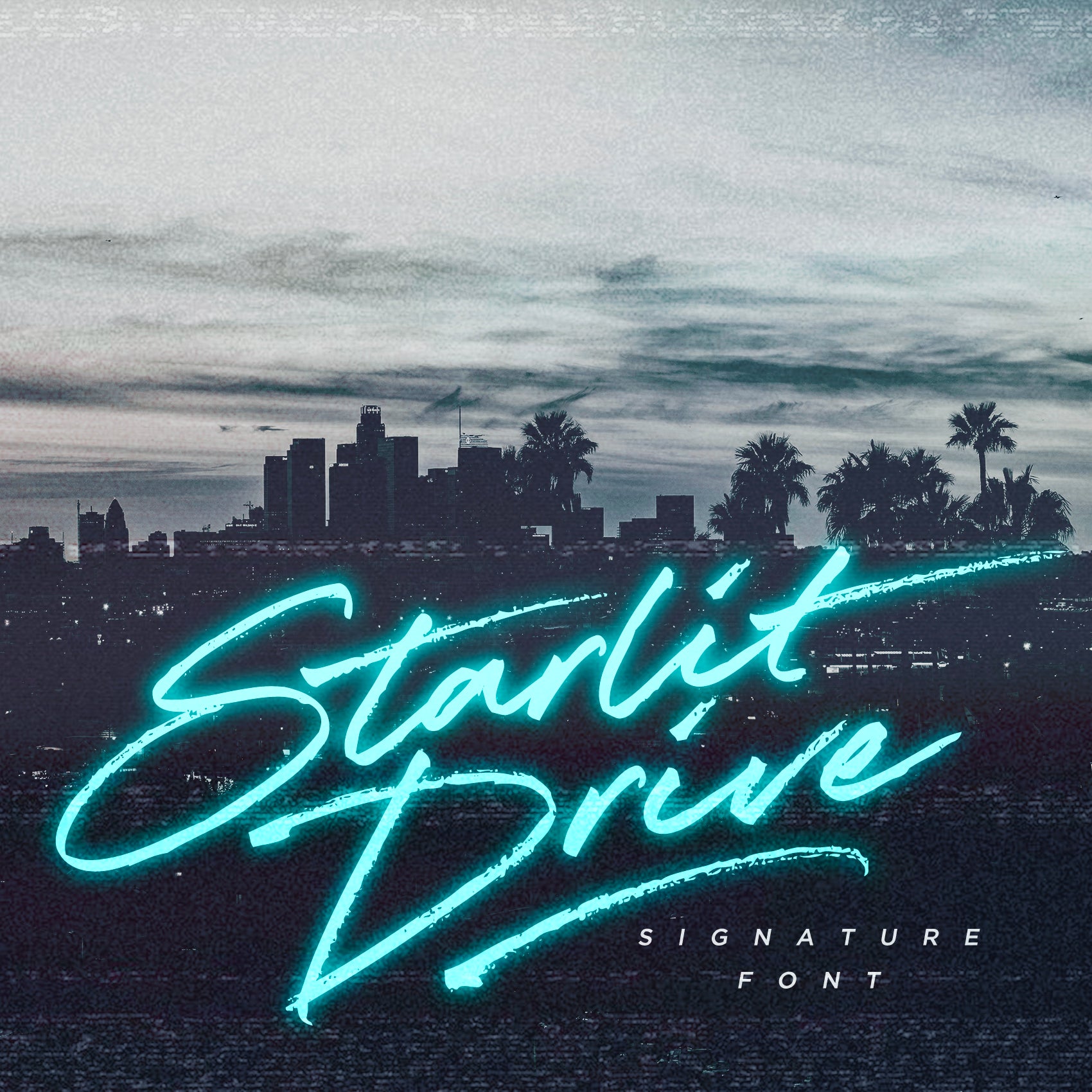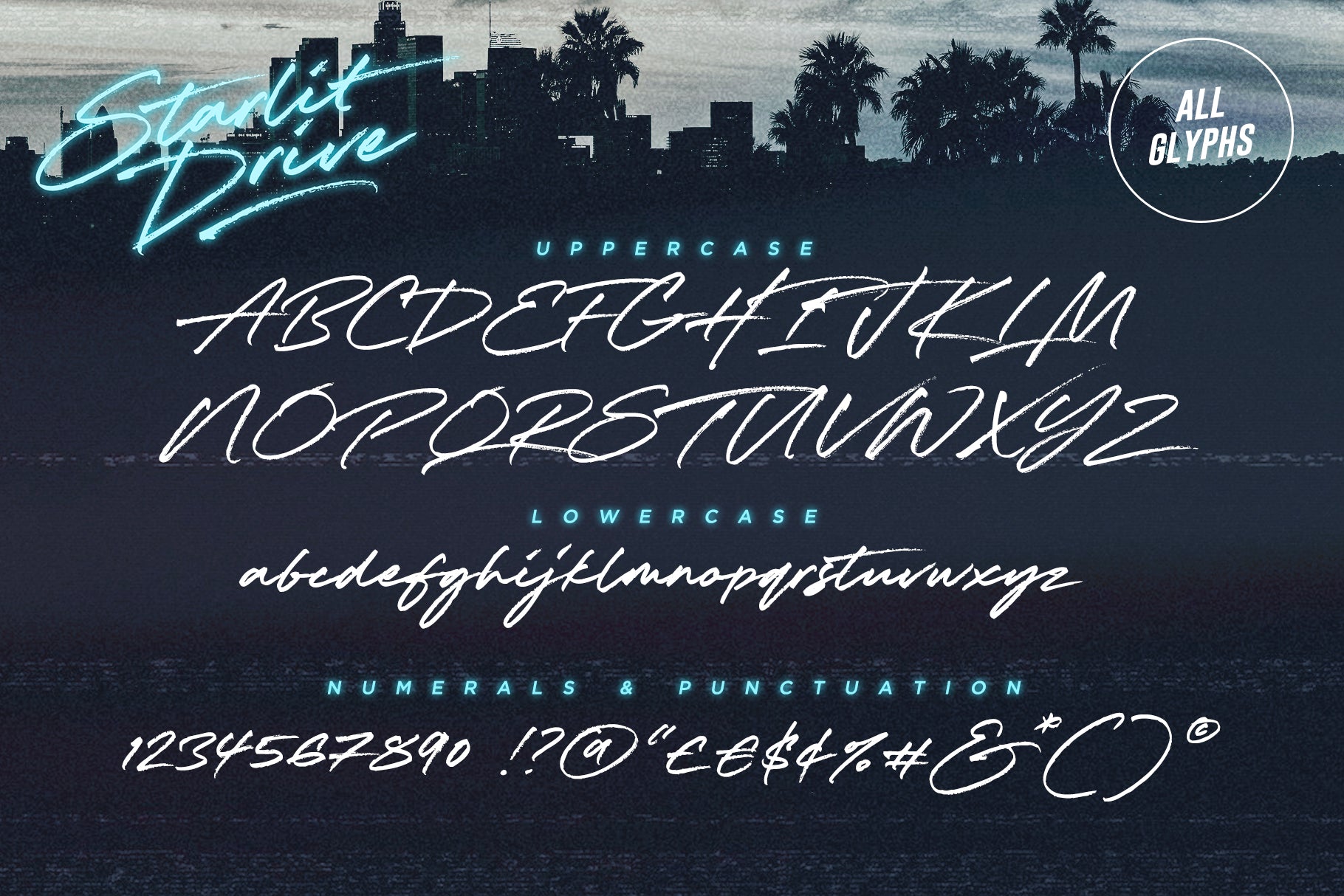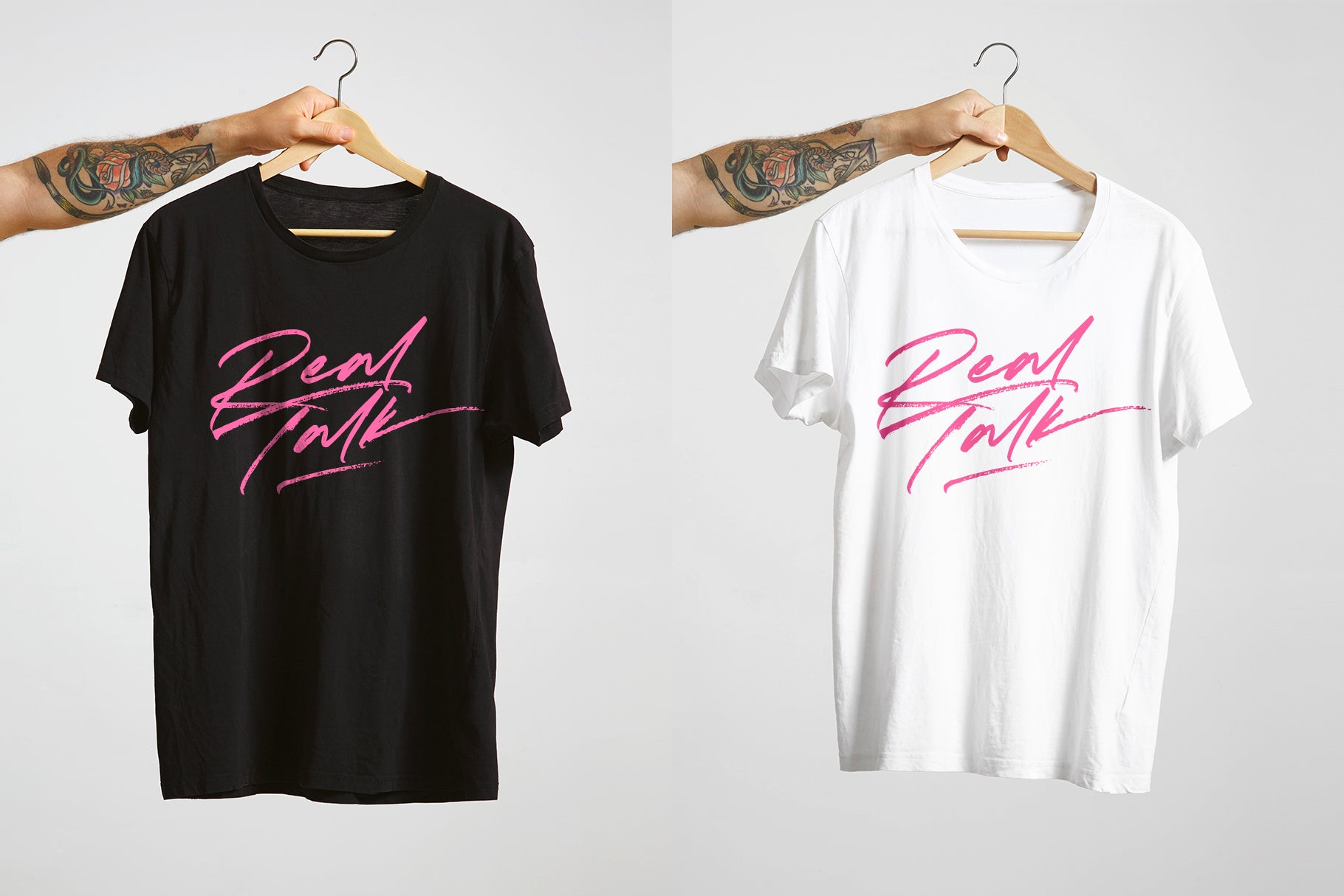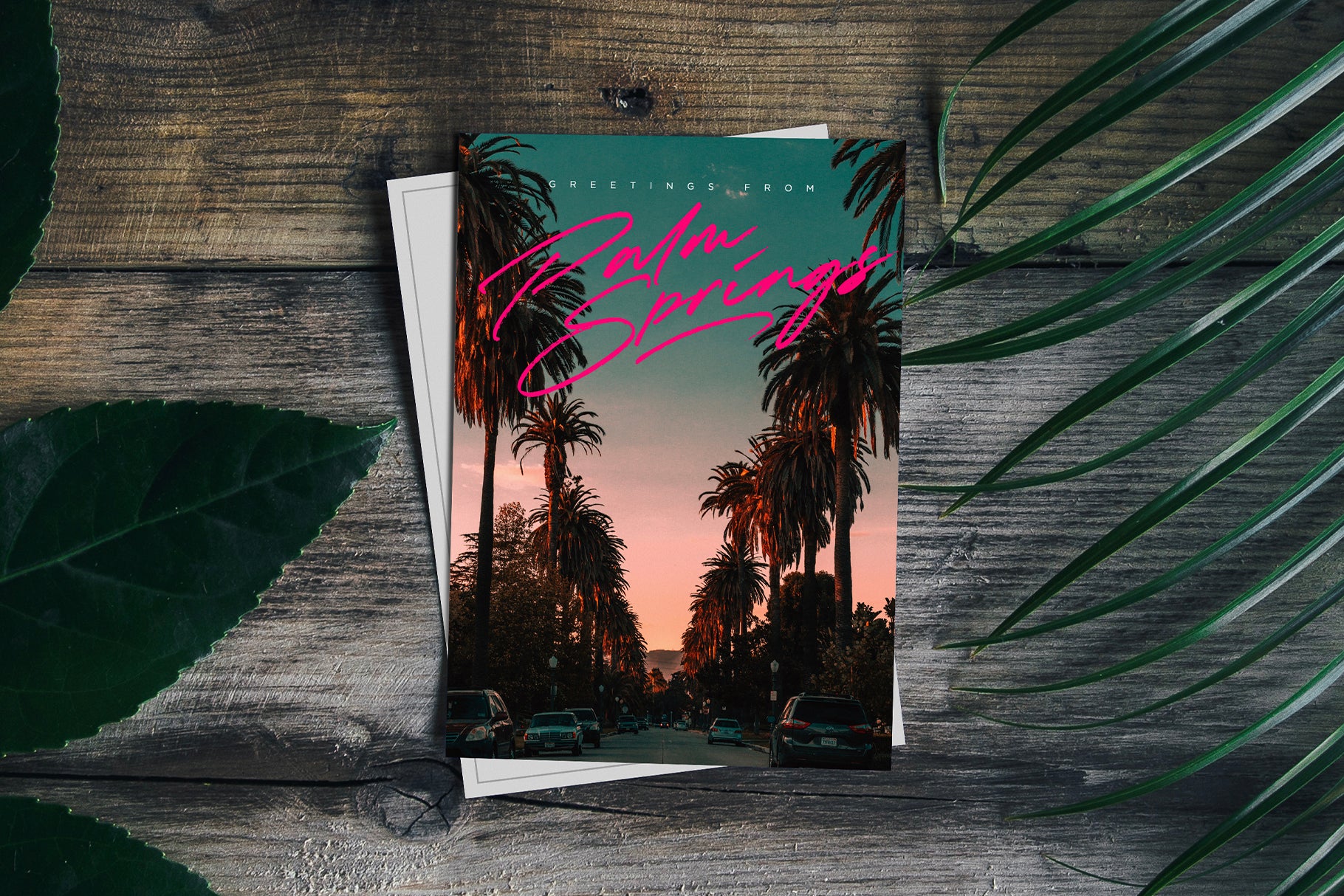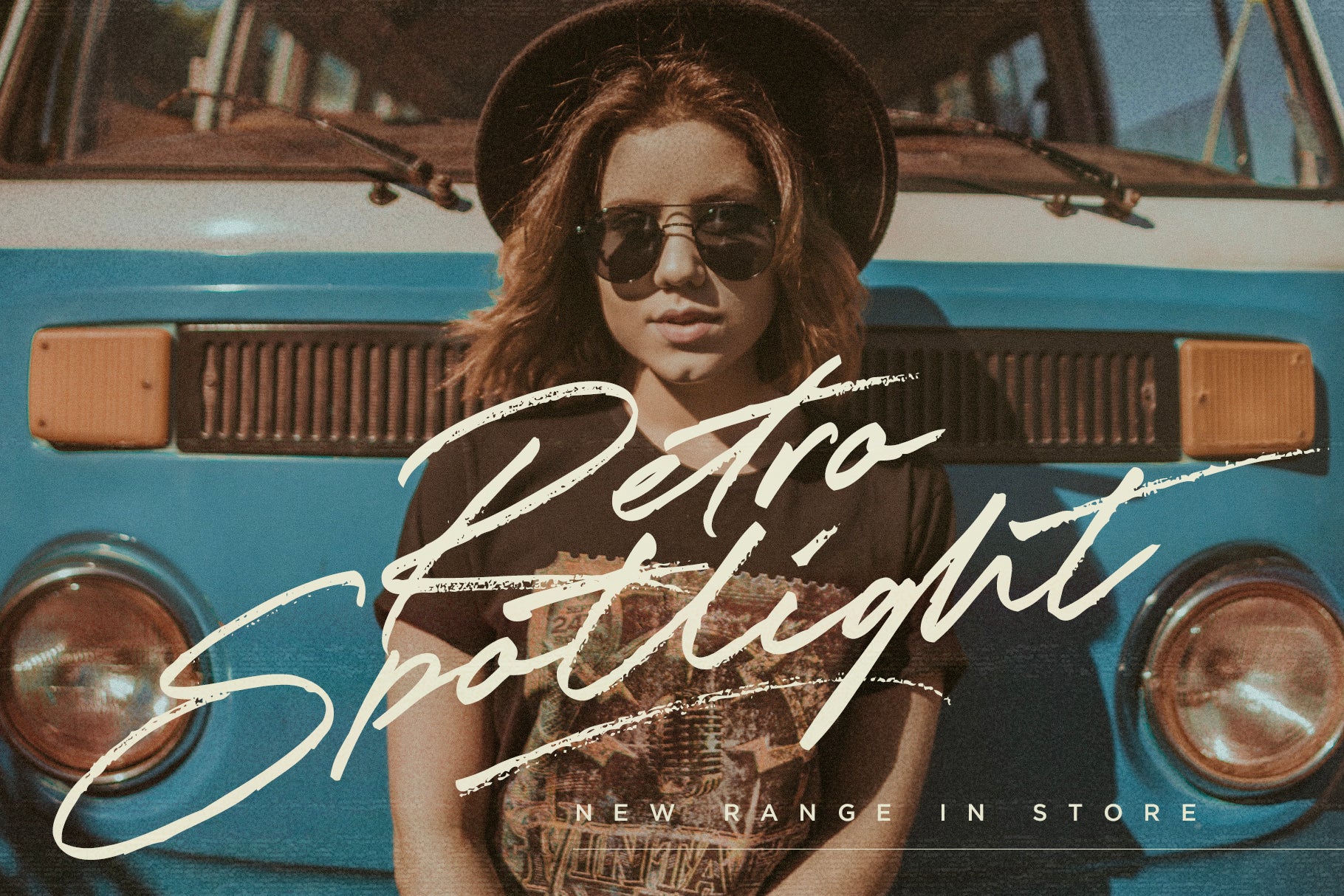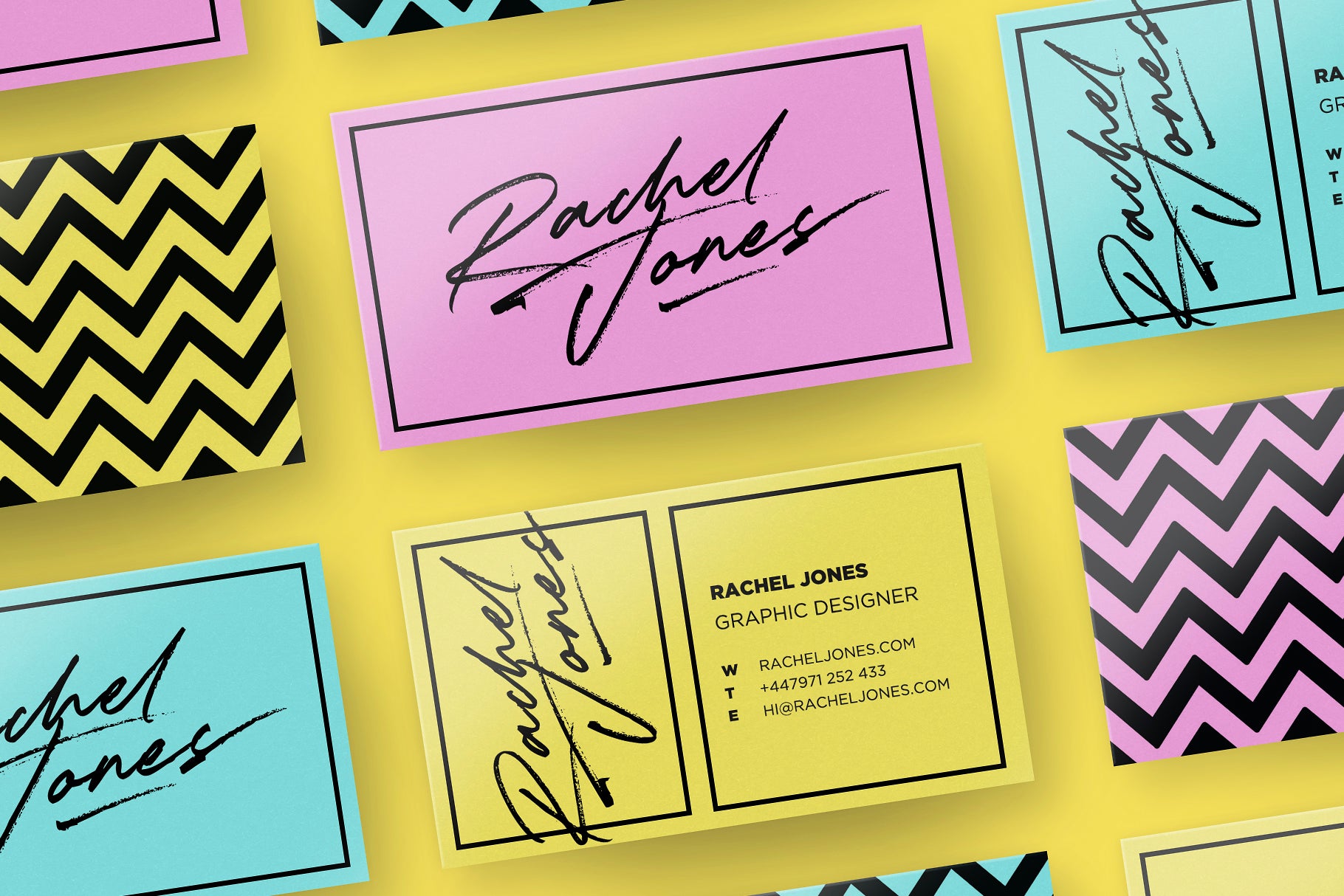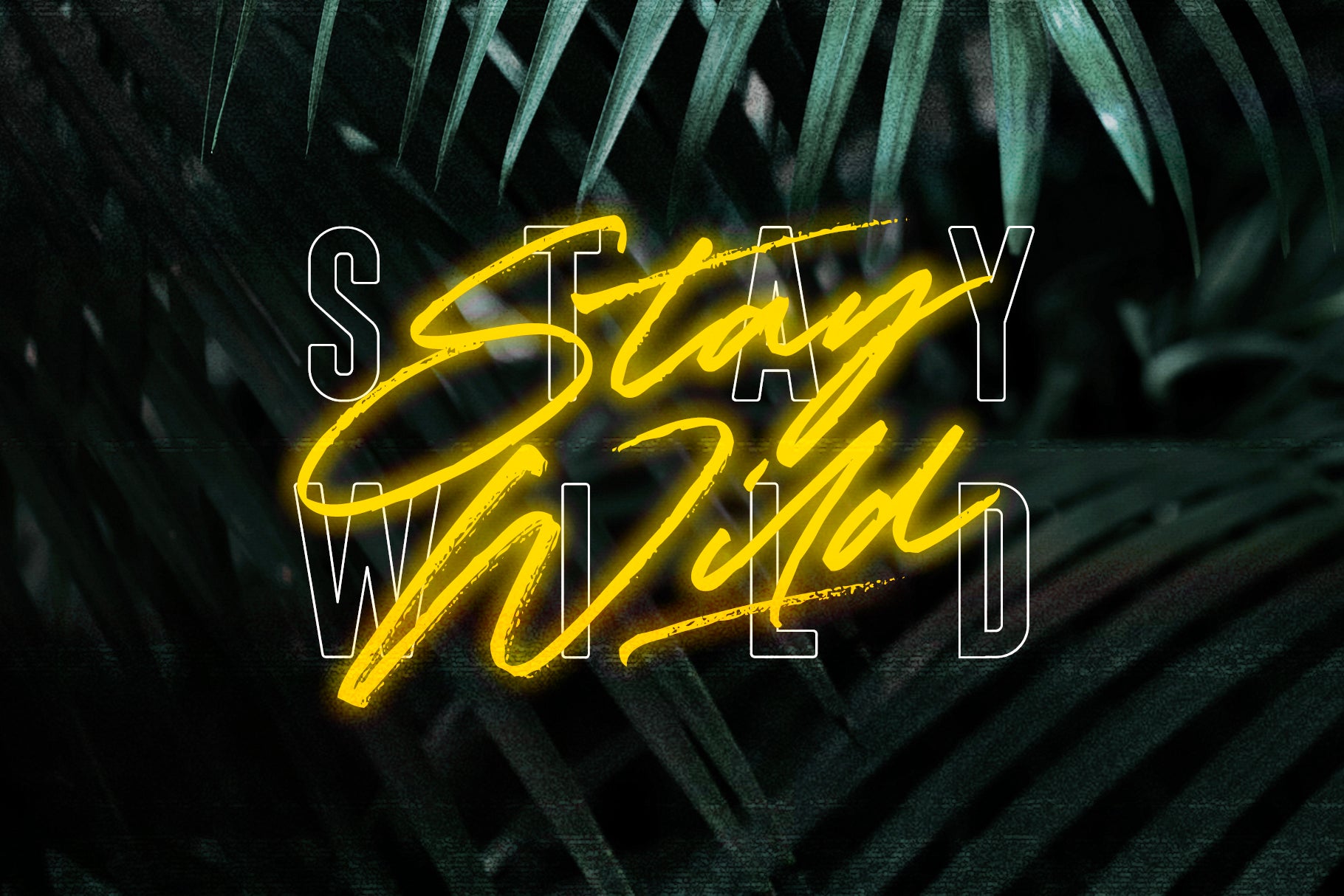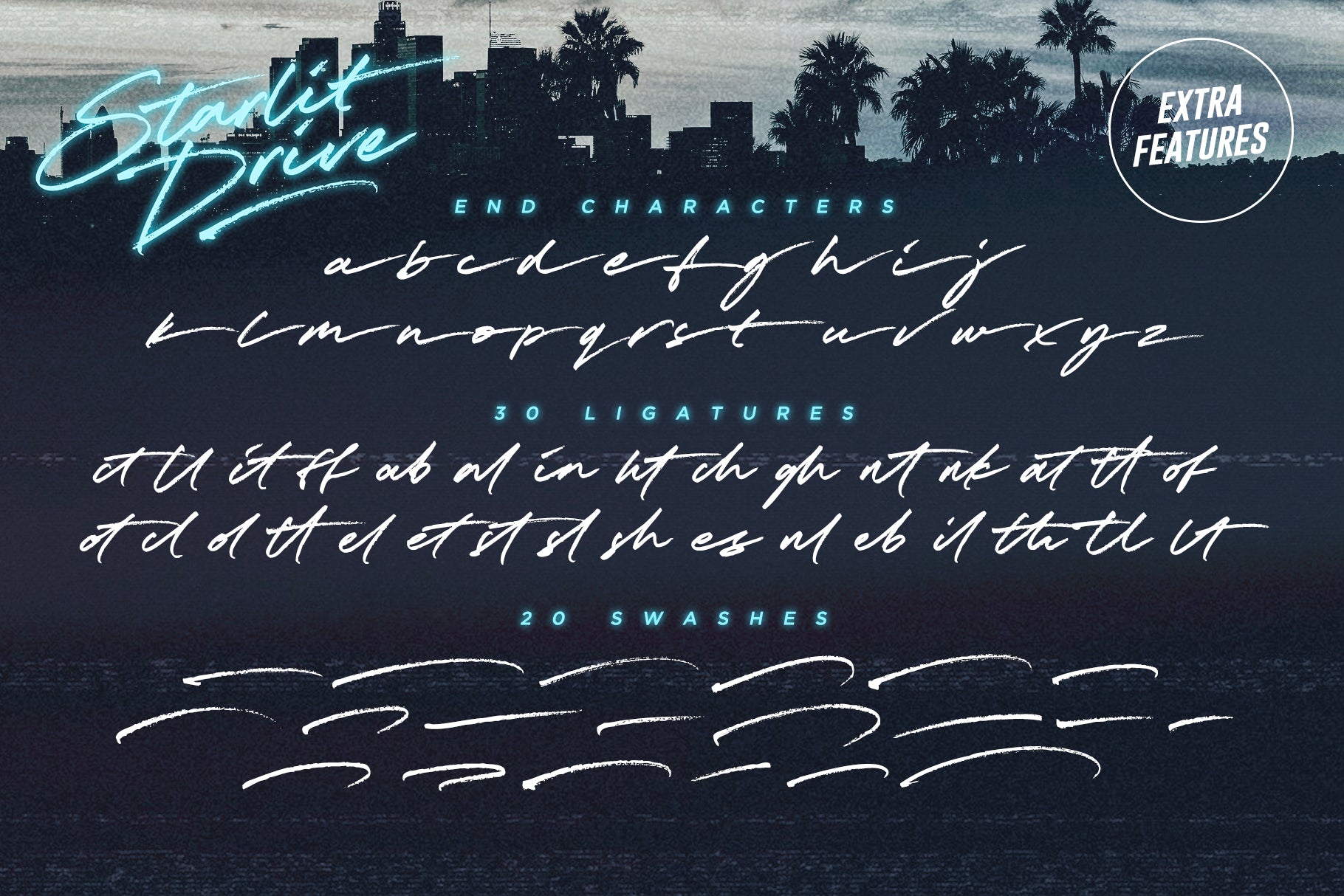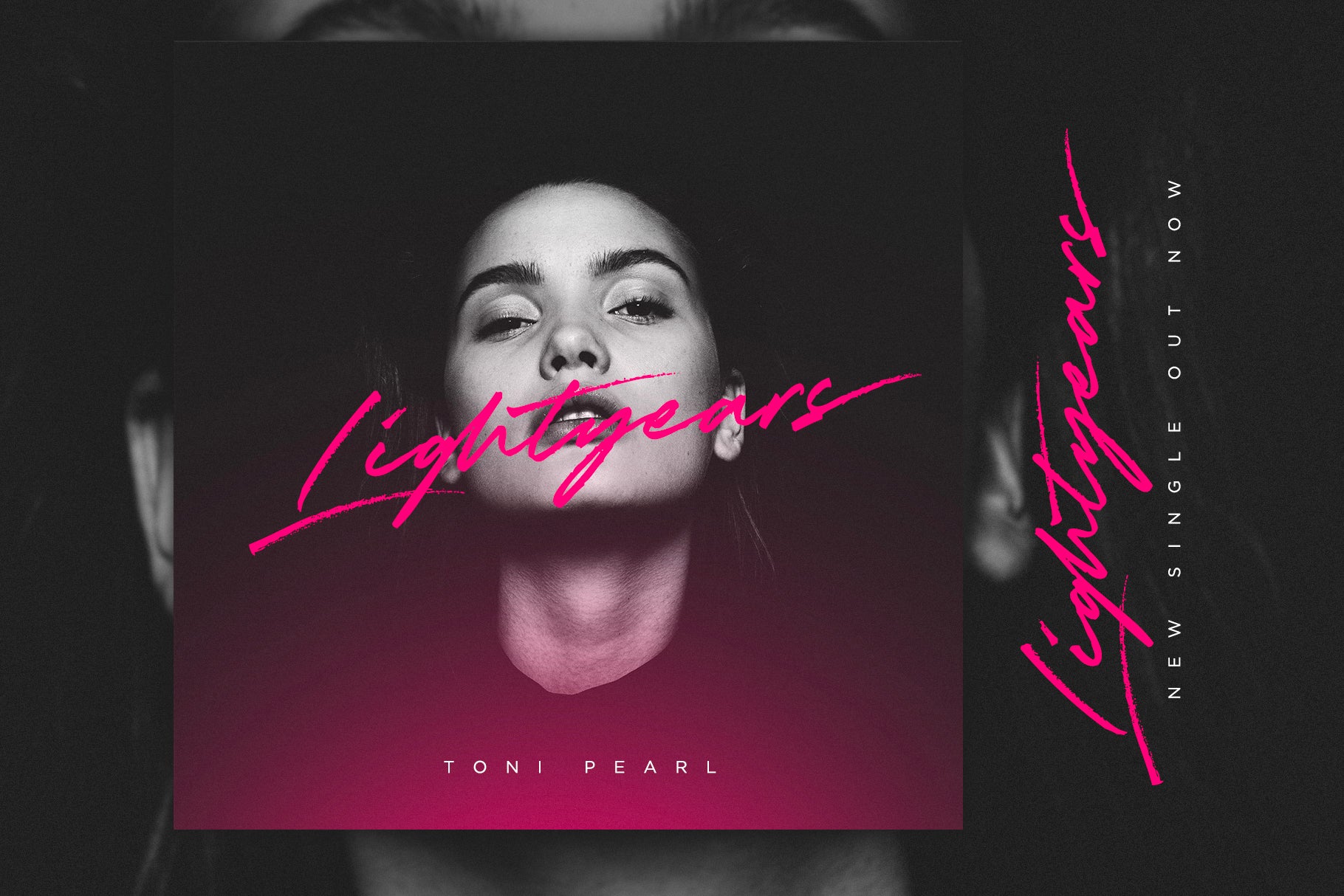
Starlit Drive Font
Starlit Drive Font is a stylish handwritten script font featuring upper and lowercase characters, numerals, and a wide range of punctuation. It includes two font files: Starlit Drive, which offers ligatures for 30 lowercase character pairings and end characters for added stylistic options, and Starlit Drive Swash, which generates one of 20 swashes for underlining text. The font supports multiple languages, including English, French, Spanish, and more.